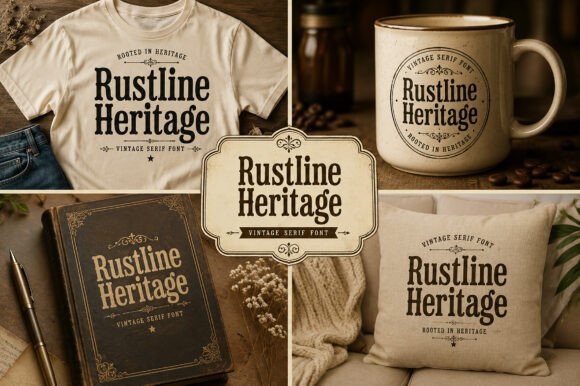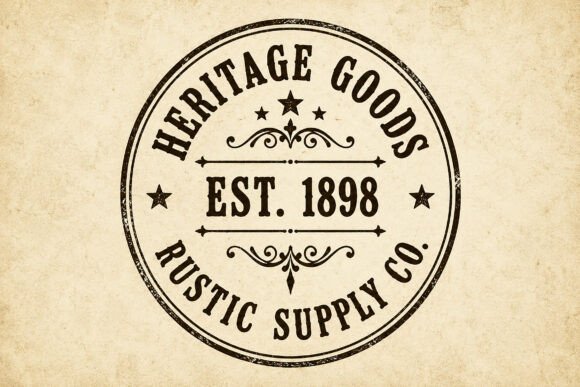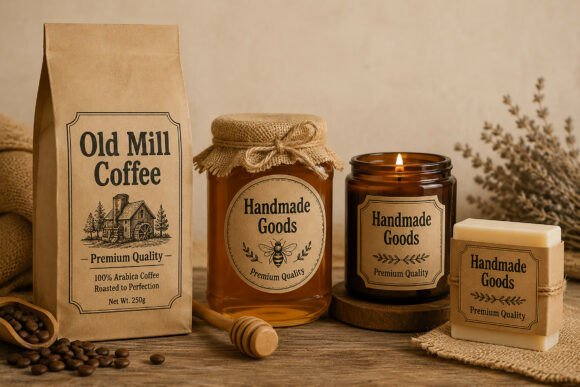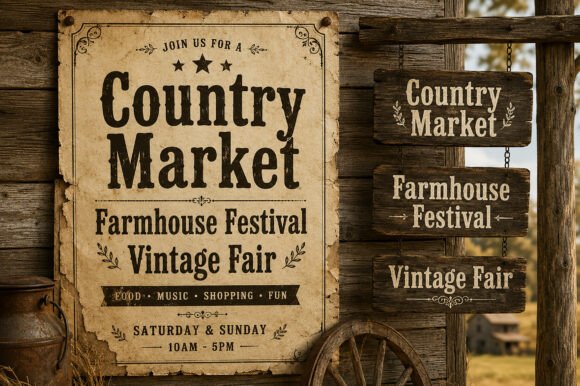
Rustline Heritage Font – Free Download
Introduction to Rustline Heritage Font
Introducing Rustline Heritage – a dynamic, vintage, serif font that echoes the charm and bold character of old Western signage, farmhouse branding, and classic Americana typography.
When you think of capturing the essence of authenticity, Rustline Heritage is your go-to font, seamlessly enhancing logos, labels, posters, autobiographies and promotional literature, to apparel, product packaging and digital content Whether your project revolves around creating a quaint, farmhouse-inspired theme or stringing together a Western narrative, your designs will radiate a nostalgic vibrancy, uniquely enriched by this distinctive typeface.
Key Features of Rustline Heritage Font
Why Choose Rustline Heritage Font?